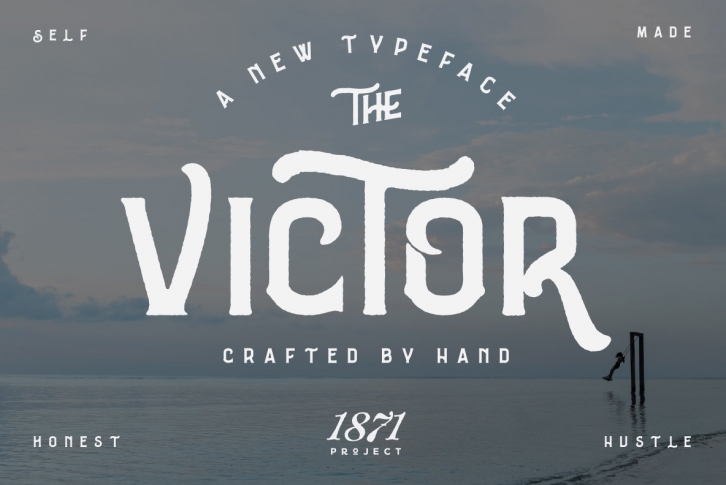
Victor is a multi-lingual hand-crafted typeface. Inspired by vintage signs and labels, its perfect for your next project. It features 26 different alternate letters you can use just by holding "shift" or "caps-lock." We even threw in a few different lockup ligatures giving your design that hand drawn feel. This font was designed with you in mind, we know how difficult it can be to give your designs a completely unique/handmade feel.